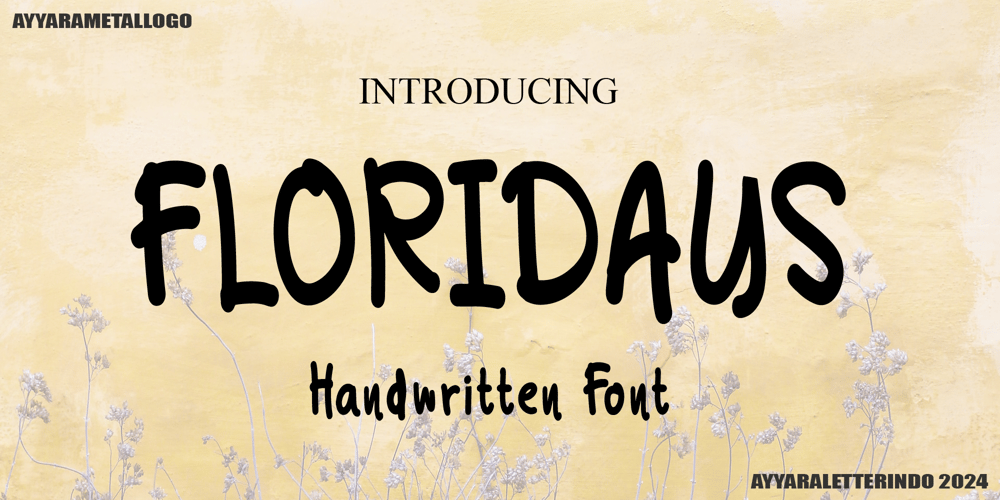
Floridays Font Family was designed by published by Ayyara Letterindo. Floridays contains 1 styles and family package options. Floridays is a casual and friendly handwritten font. Whether you’re using it for crafts, digital design, presentations, or making greeting cards, this font has the potential to become your favorite go-to font, no matter the occasion.